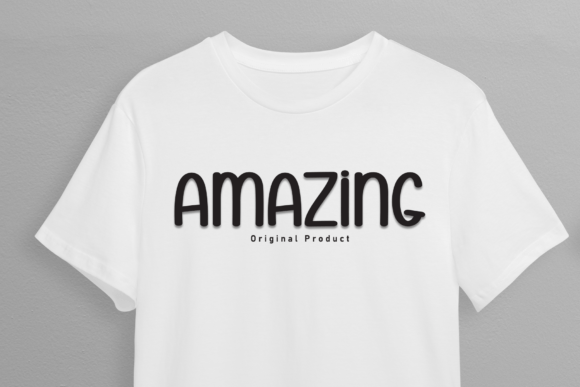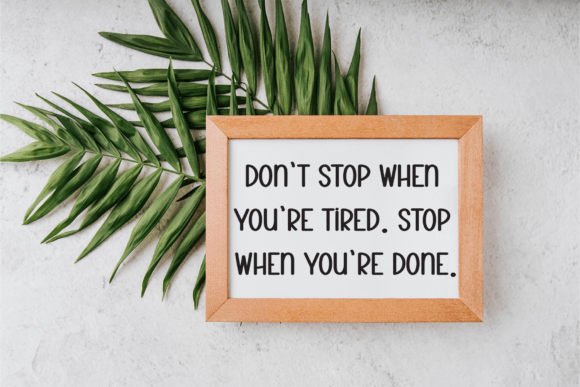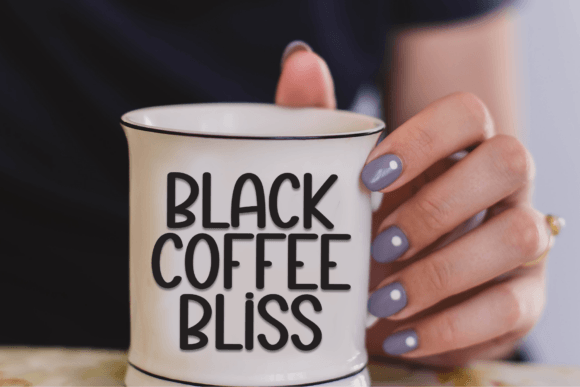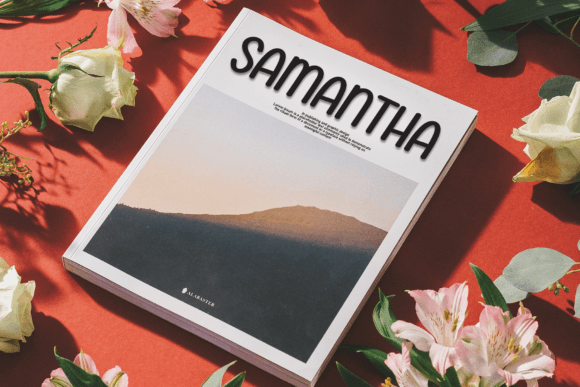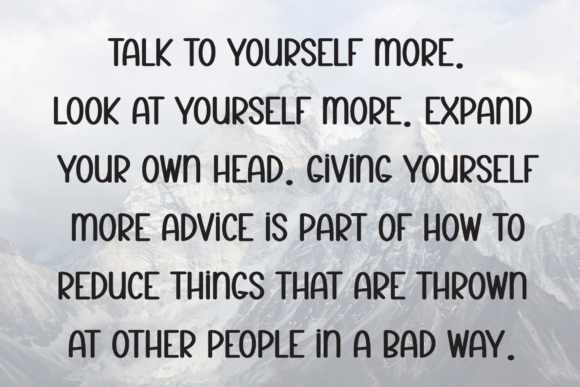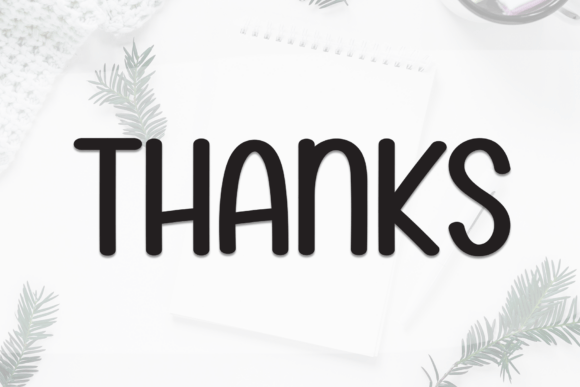
Introduction to Notebook Snowhouse Font
Have you ever been working on a creative project and suddenly, the perfect font pops into your mind? It’s as if the entire design just comes together in an instant. That’s exactly what happened to many designers when they stumbled upon the Notebook Snowhouse Font. This sweet and friendly handwritten font has been a game-changer for many design enthusiasts, and for good reason.
With its natural and unique style, Notebook Snowhouse Font is incredibly versatile and can be used in a wide range of designs. Whether you’re working on a free download project or creating a high-quality design resource, this font is sure to add a touch of warmth and personality to your work. And the best part? It’s available for free download, making it an accessible design resource for designers of all levels.
So, what makes Notebook Snowhouse Font so valuable for designers? For one, its transparent background makes it easy to use in a variety of design contexts. Whether you’re working on a creative project with a lot of text or just need a font that will add some visual interest to your design, Notebook Snowhouse Font is a great choice. Its high-quality design ensures that it will look great on any background, making it a valuable addition to any designer’s toolkit.
Key Features of Notebook Snowhouse Font
- Unique, hand-drawn design ideal for creative projects and personal use.
- Features a transparent background, allowing for easy customization and versatility in design applications.
- High-resolution design (300 DPI) ensures crisp and clear rendering in digital and print projects.
- Perfect for use in digital art, illustrations, and graphic design projects, adding a touch of whimsy and personality.
Honest Review: Notebook Snowhouse Font
I recently had the chance to work with the Notebook Snowhouse Font, and I must say it’s been a game-changer for my creative projects. This free download has quickly become a staple in my design resource library.
Here are some things that work well with the Notebook Snowhouse Font: ✨
- Unique and elegant design style that adds a touch of sophistication to any project
- High quality, crisp lines and details that make it perfect for print and digital use
- Transparent background makes it easy to layer and combine with other design elements
However, there are a few limitations to keep in mind: ⚠️
- Only available in a limited range of font weights and styles
- May not be suitable for projects that require a lot of bold or dramatic typography
Overall, I’m really impressed with the Notebook Snowhouse Font. Its elegant design and high quality make it a great addition to any design library. If you’re looking for a reliable and versatile font for your creative projects, I would definitely recommend giving it a try.
Notebook Snowhouse Font
Using Notebook Snowhouse Font in Creative Projects
This high-quality font is ideal for various creative projects, including digital designs, print materials, and even web graphics. You can use it with a transparent background to create visually appealing and engaging content.
Using Notebook Snowhouse Font in Popular Design Tools
Tips for Getting the Most Out of Notebook Snowhouse Font
- Experiment with different font sizes and styles to achieve the desired look.
- Combine the Notebook Snowhouse Font with other design elements to create a unique visual identity.
- Use the transparent background feature to create a seamless design experience.
Common Use Cases for Notebook Snowhouse Font
- Business cards and branding materials